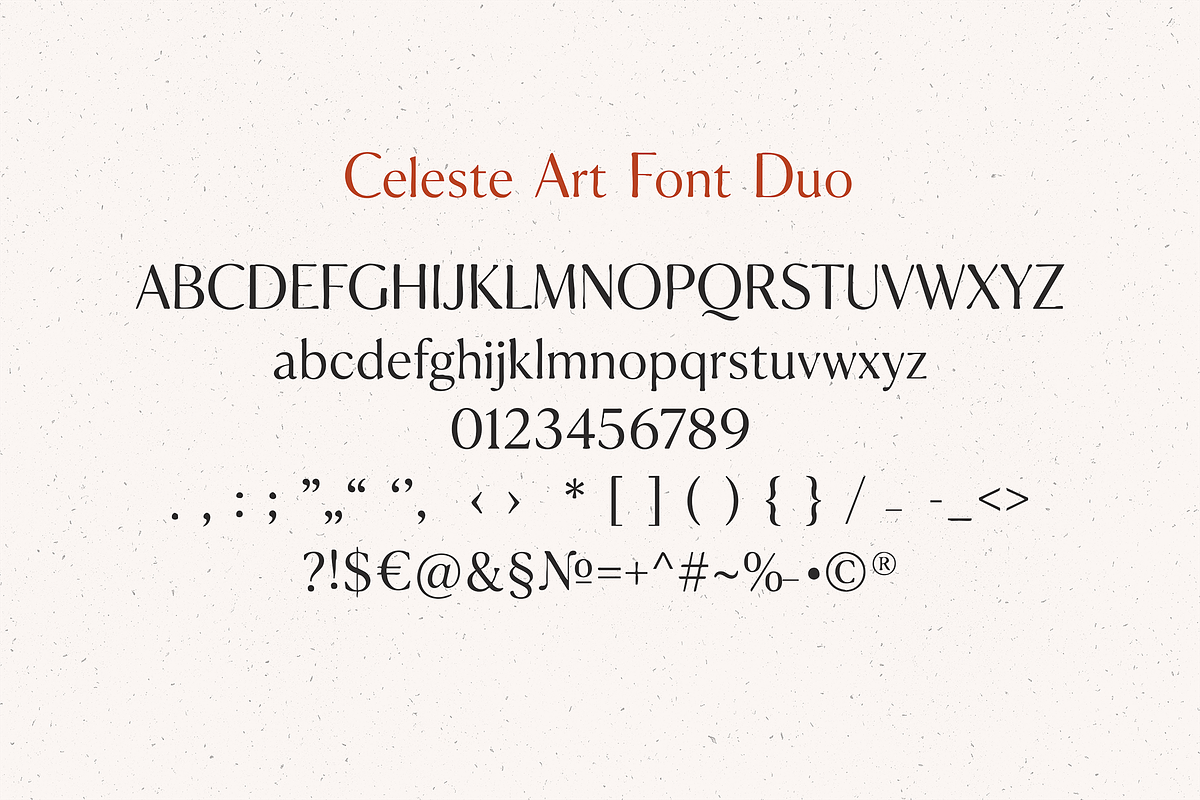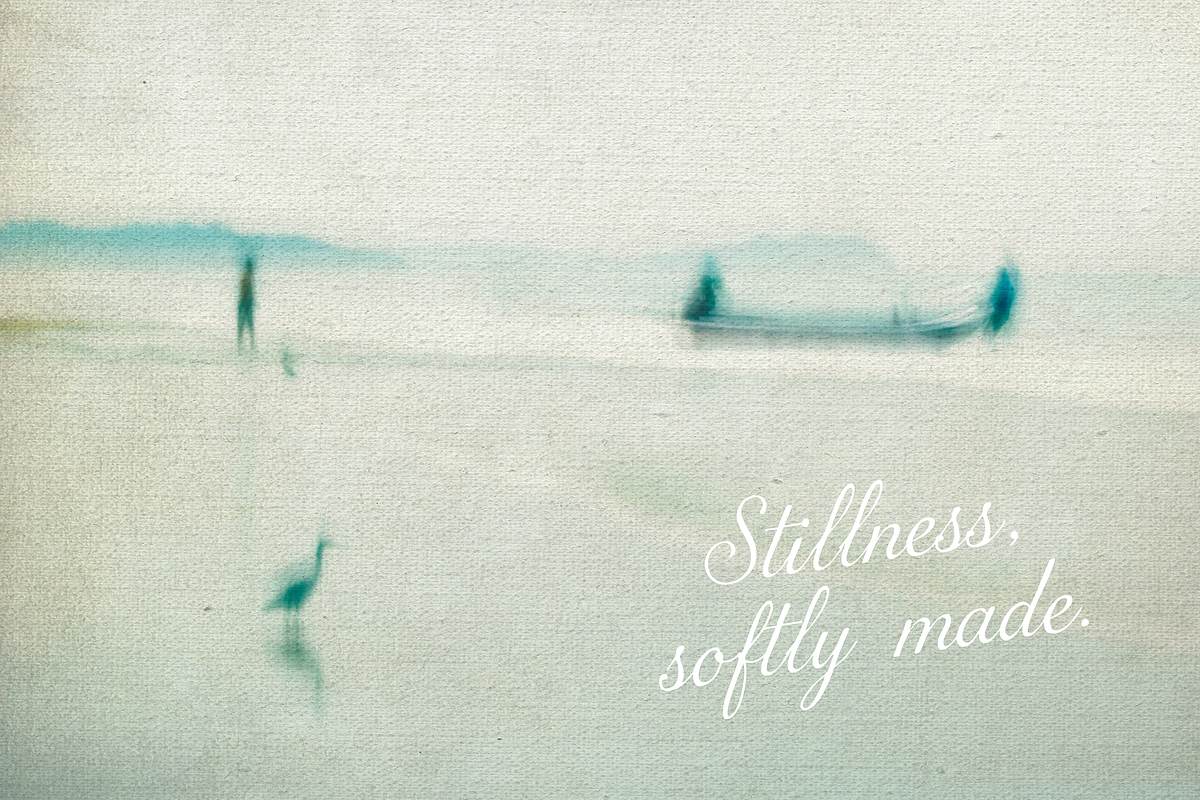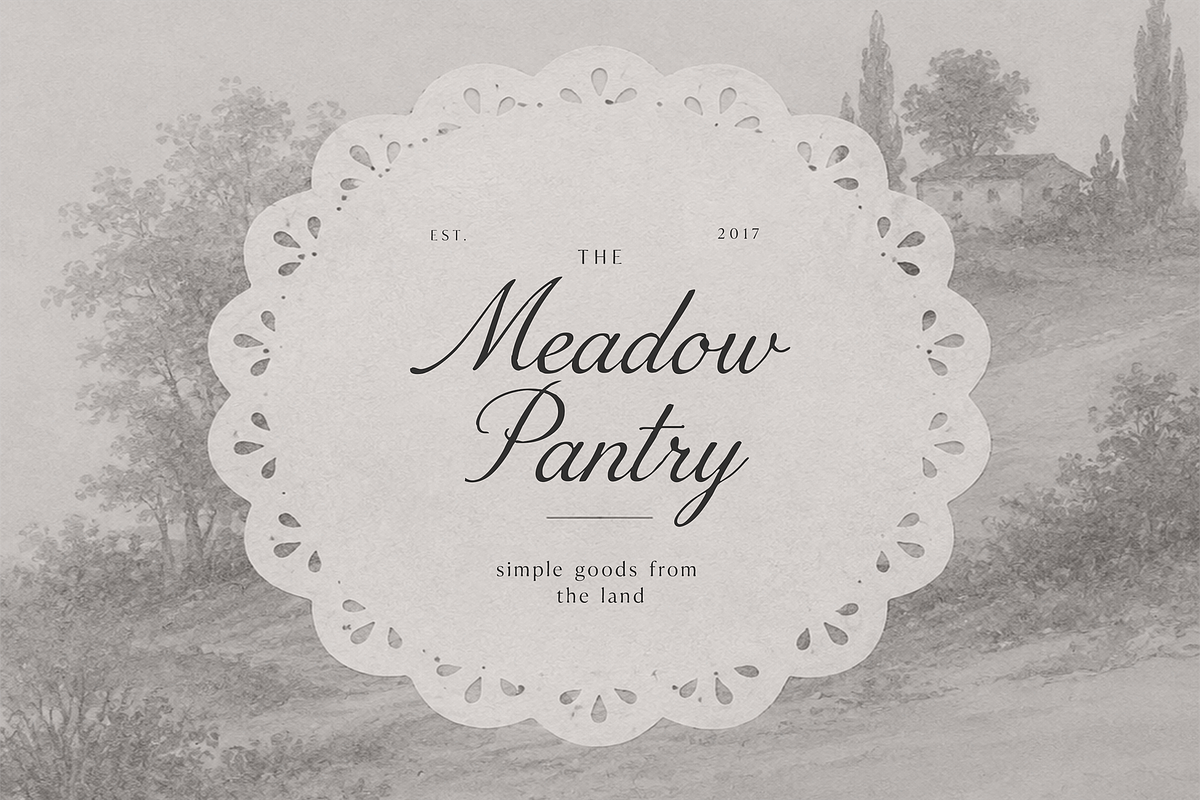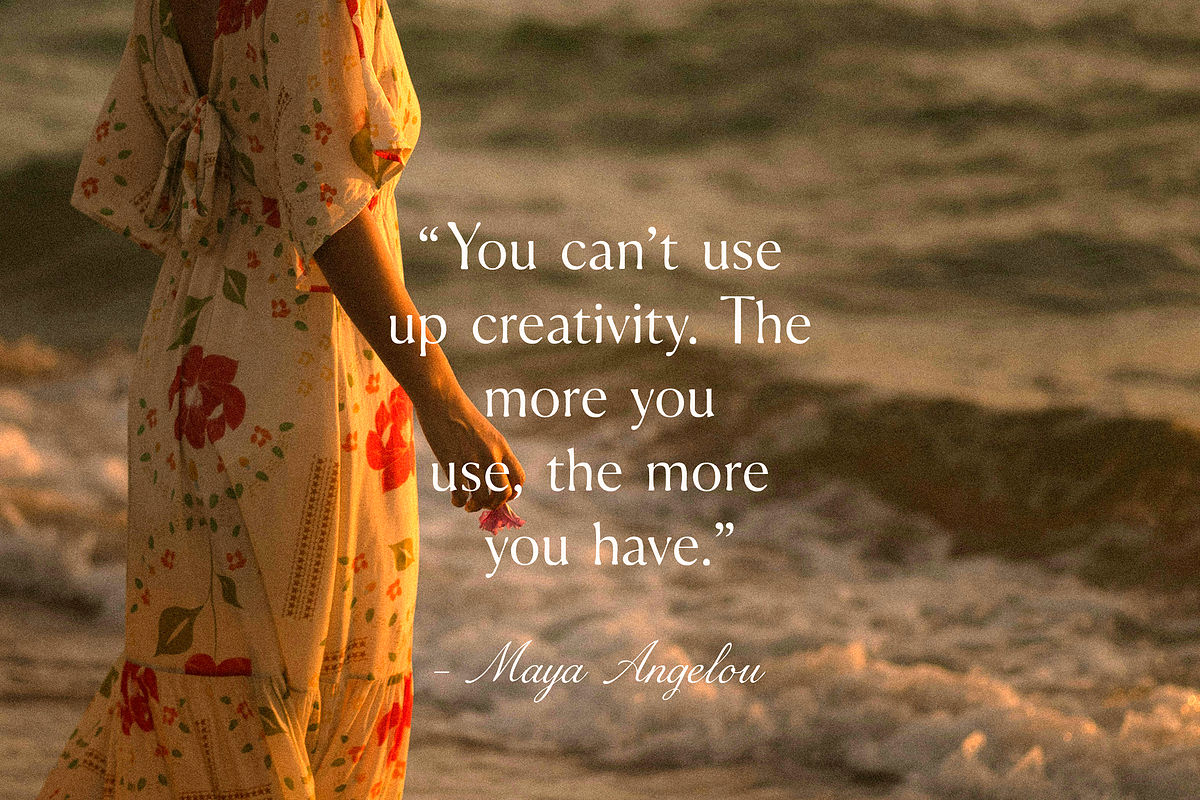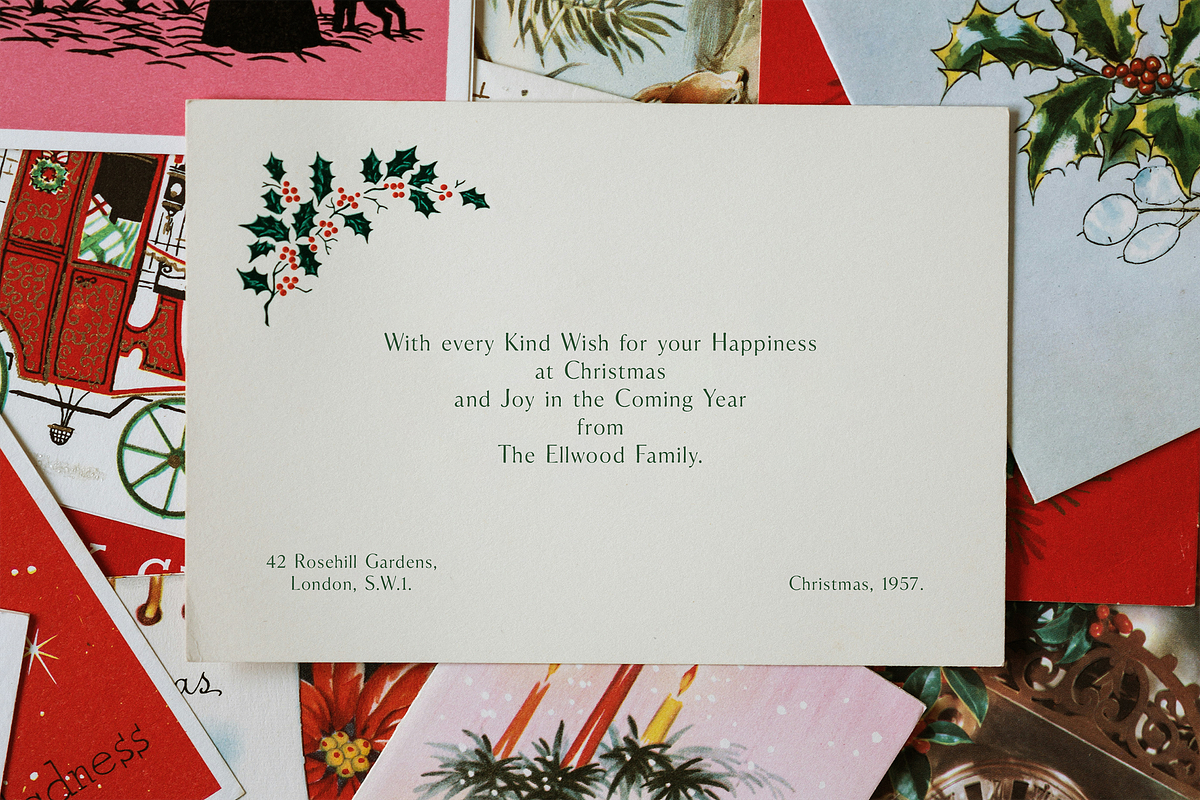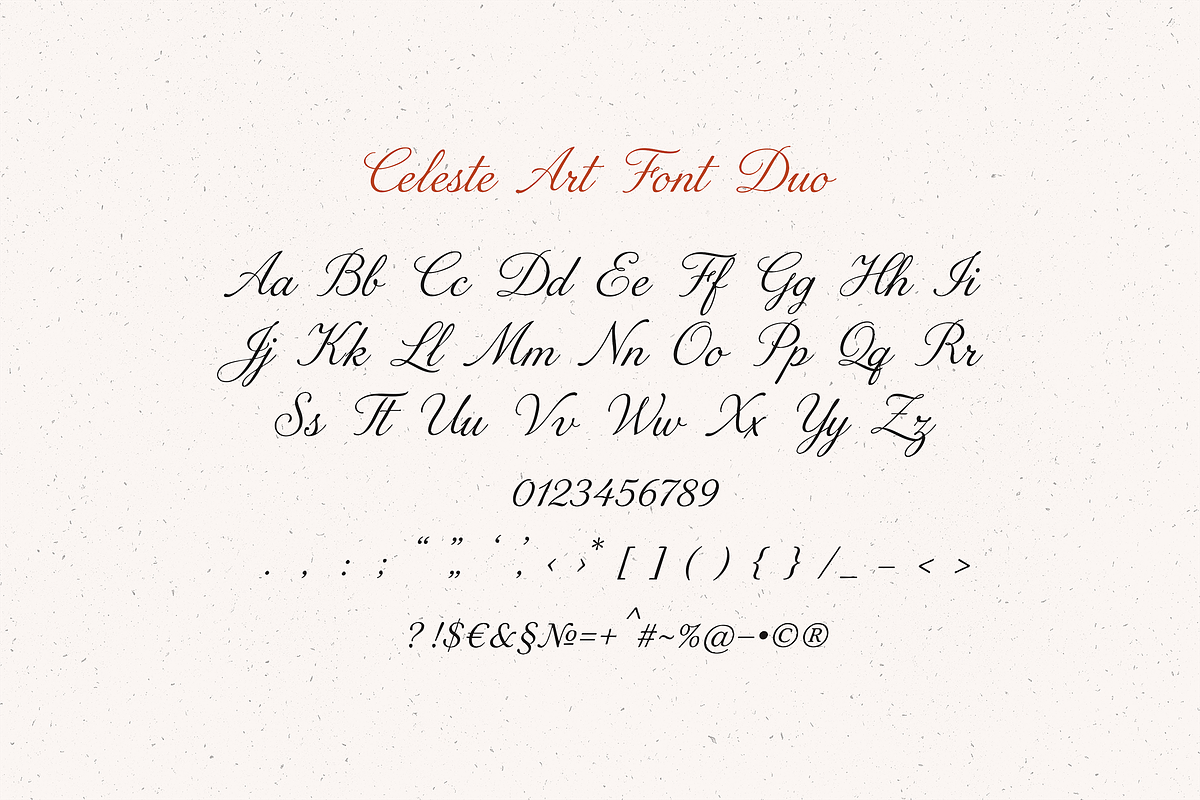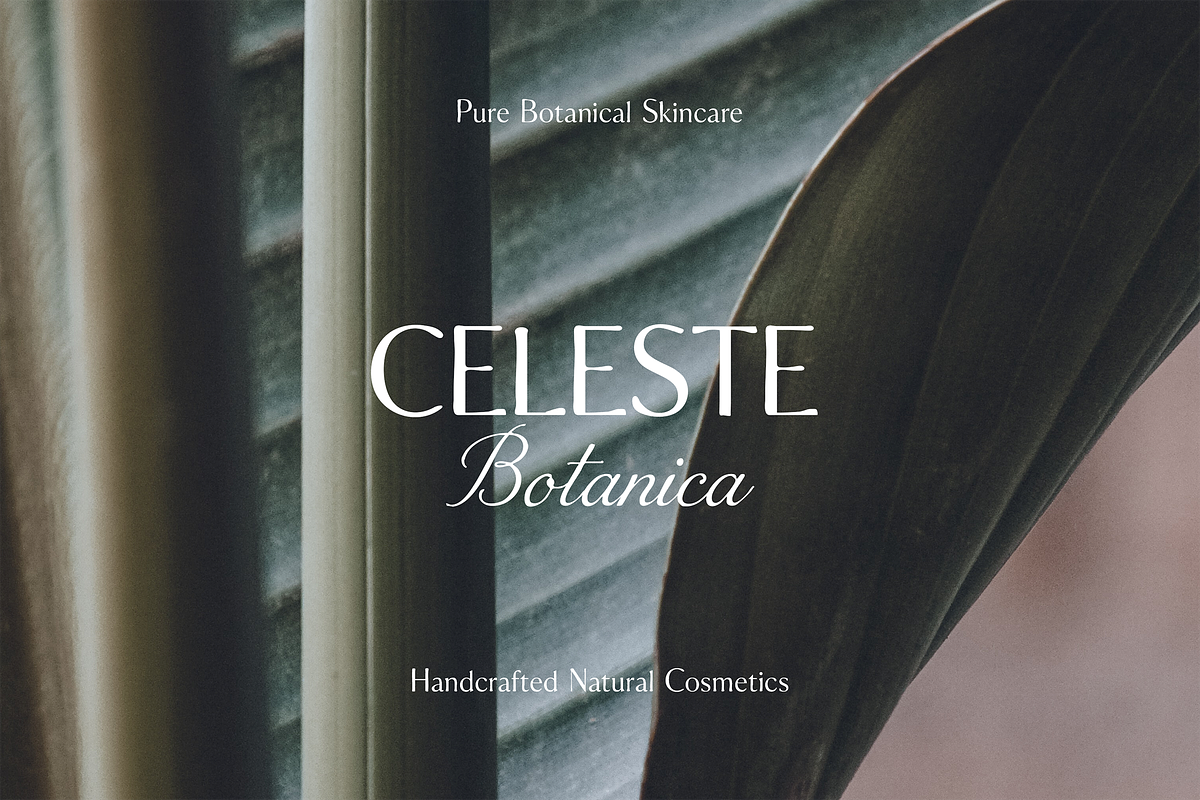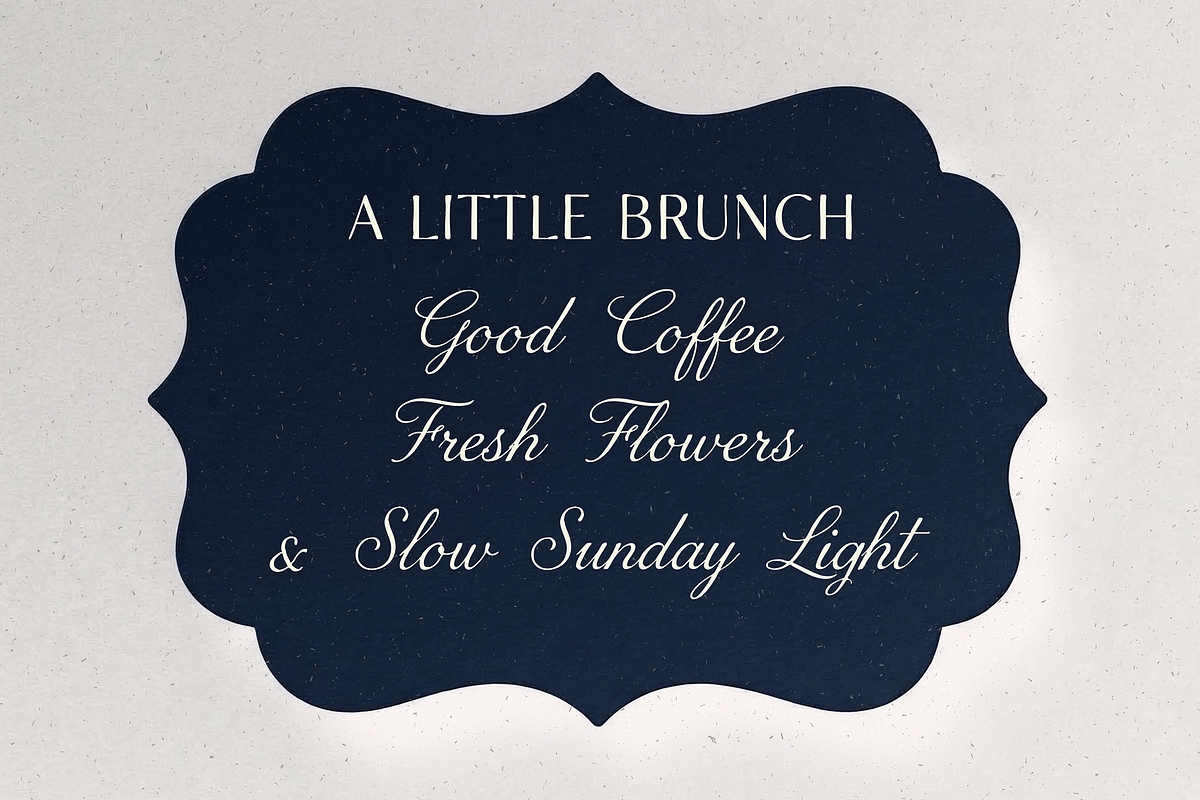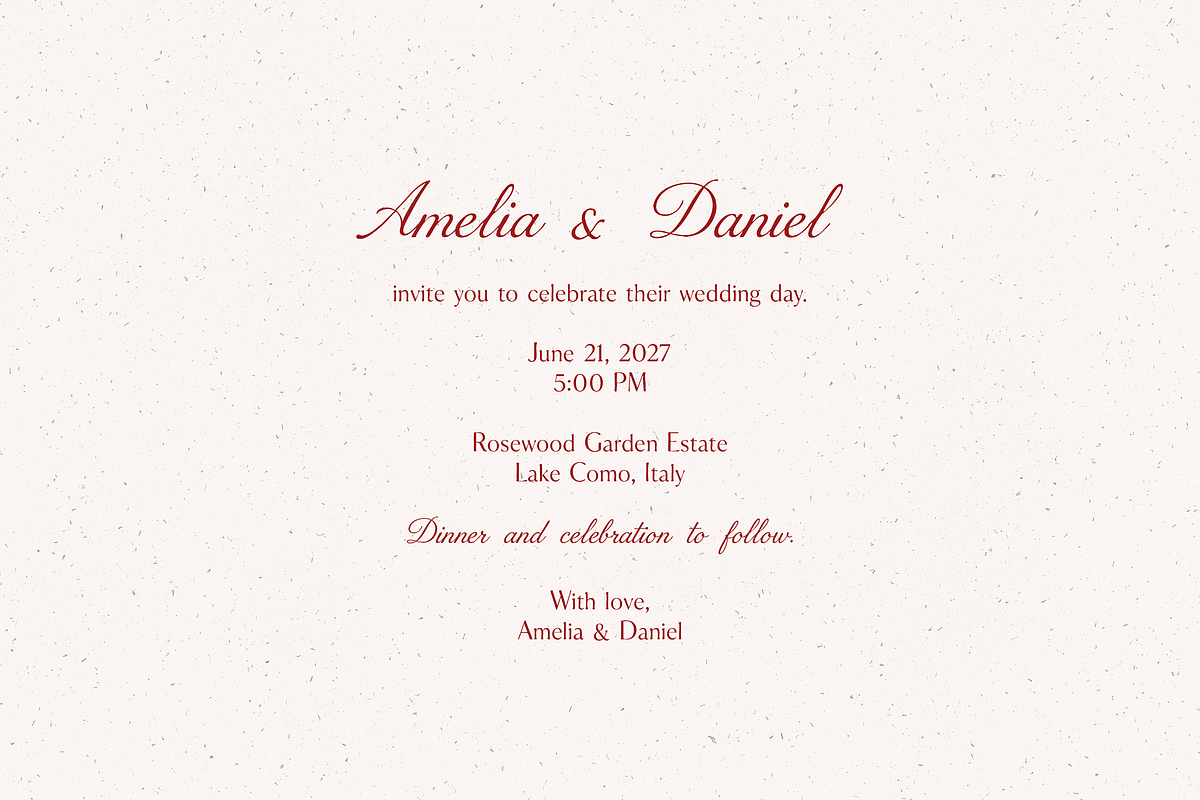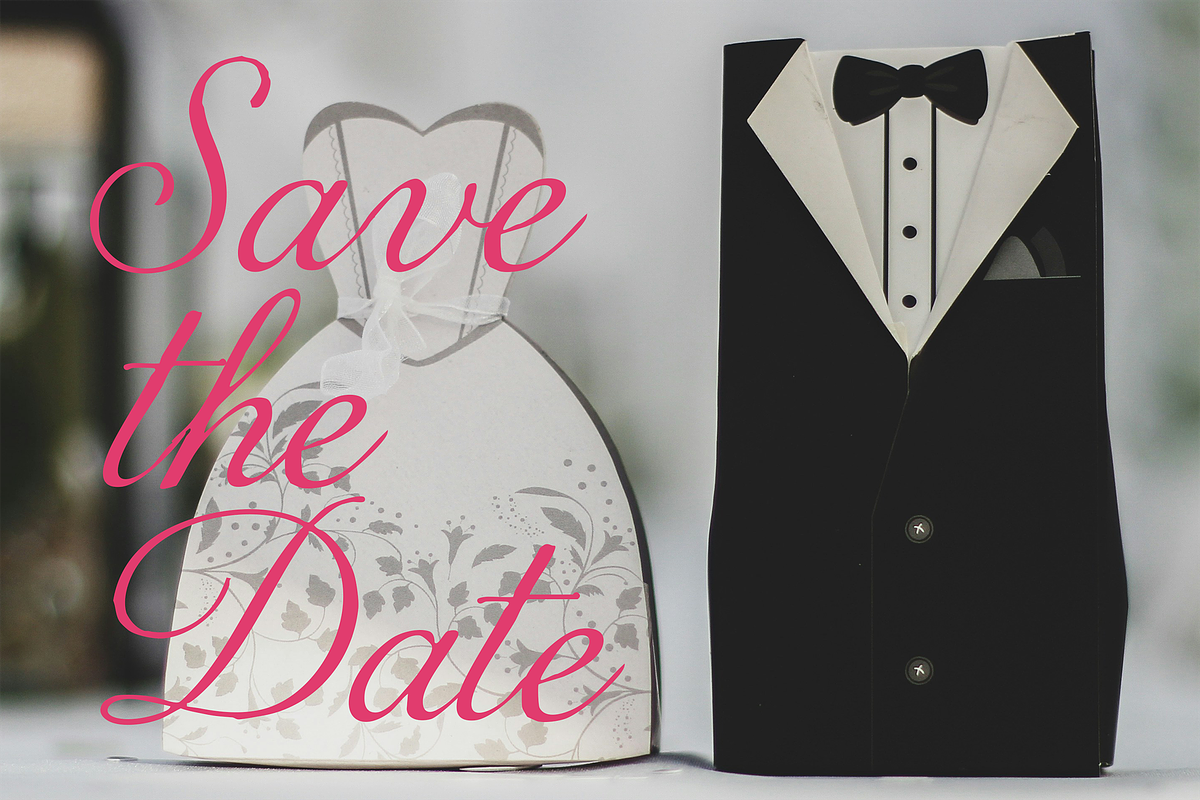
Celeste Art — Elegant Serif & Script
**Celeste Art **is an elegant script and serif font duo designed for romantic, refined and timeless visual identities.
This font pairing includes a graceful handwritten script and a delicate minimal serif, created to work beautifully together in wedding stationery, feminine branding, luxury packaging, logos, invitations, social media graphics, quotes, editorials and boutique design projects.
The script font adds a soft, romantic and handwritten touch, while the serif font brings balance, elegance and a clean editorial feel. Together, they create a polished font combination that feels feminine, sophisticated and effortless.
Celeste Art is perfect for:
• Wedding invitations and save the dates • Luxury logos and brand identities • Feminine business branding • Beauty, perfume and skincare packaging • Candle labels and product tags • Boutique and fashion branding • Editorial layouts and magazine-style designs • Instagram posts, Pinterest graphics and quotes • Photography watermarks and signature logos • Elegant stationery and handmade projects